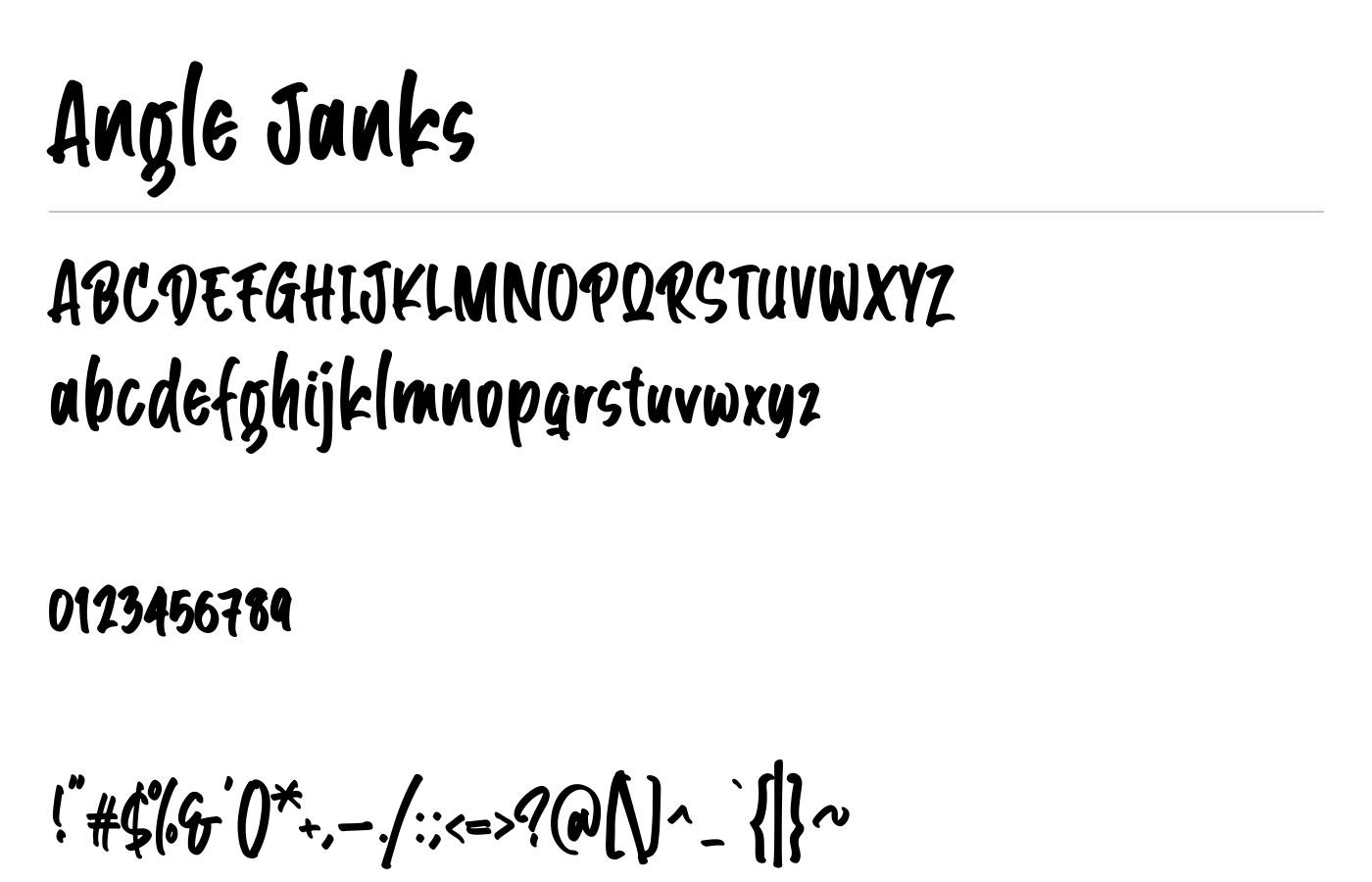
Angle Janks is a bold, playful script font that mimics lively, hand-painted brush strokes with its uneven, energetic letterforms and casual flair. Its upright, moderately condensed characters with irregular shapes create a friendly and informal vibe, making it perfect for creative projects, logos, and packaging that want to evoke a sense of fun and personality. This font excels in headlines and display use where a spirited and approachable look is desired.
Angle Janks Font
About Angle Janks Font
| Designer | Colllab Studio Team |